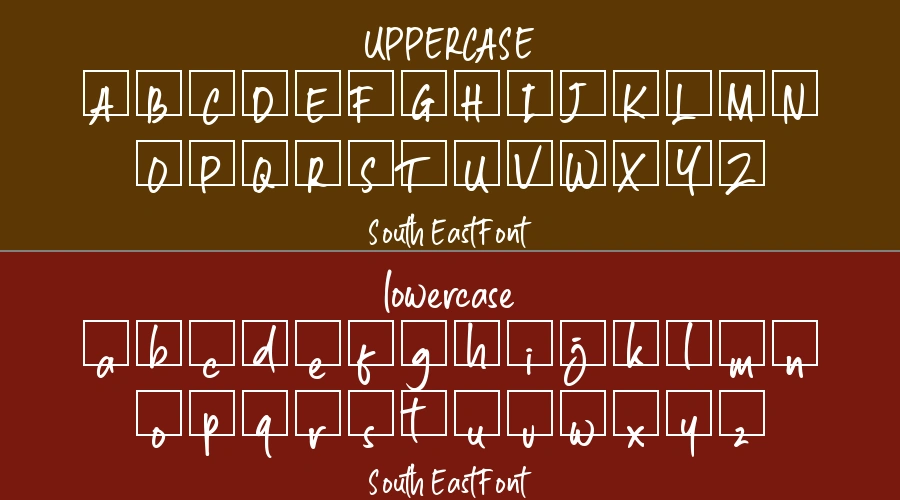
About South East Font
South East Font represents a sophisticated approach to type design, balancing elegant proportions with market differentiation. Perfect for packaging hero, this font family showcases impressive scalability and market relevance throughout its character set. Designers appreciate its versatility and reliability.
Designers will appreciate nuanced touches including swash extensions and standard ligatures, adding sophistication to any project. These features become apparent in campaign headers, where purchase influence matters most. The careful treatment of counter aperture and emotional appeal ensures optimal performance.